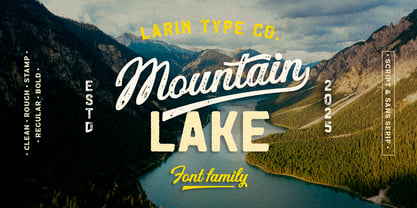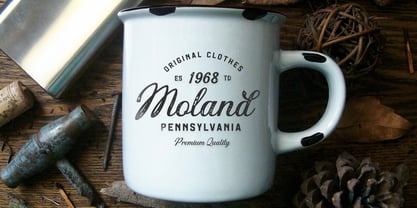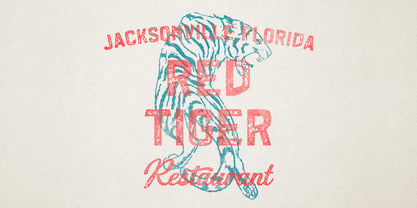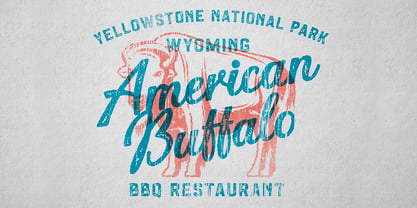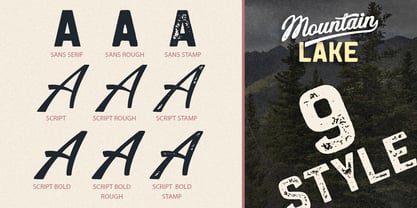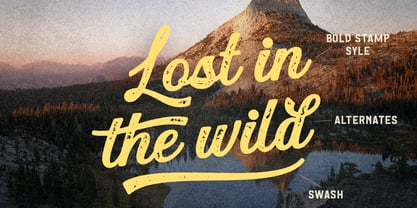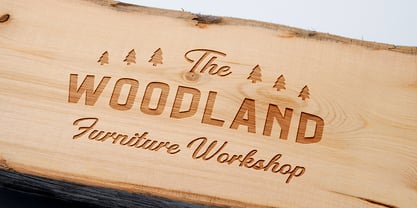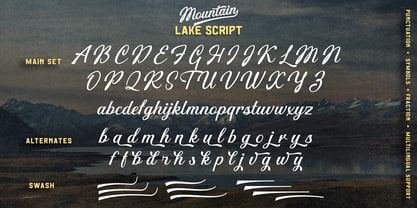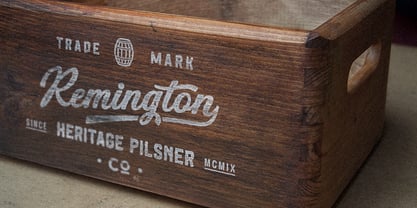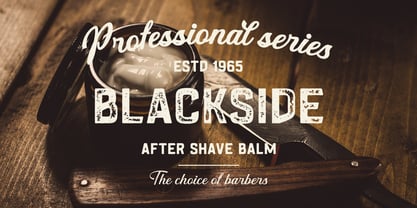
Mountain Lake
by Larin Type Co
Mountain Lake is a vintage collection of fonts that includes sans serif, script and script bold, each of them has three style – Clean, Rough and Stamp style. Also for the scripts includes Alternates and Swashes. This collection was inspired by vintage signage, logos and this fonts are perfectly suitable for any vintage project and will make it at a high level.